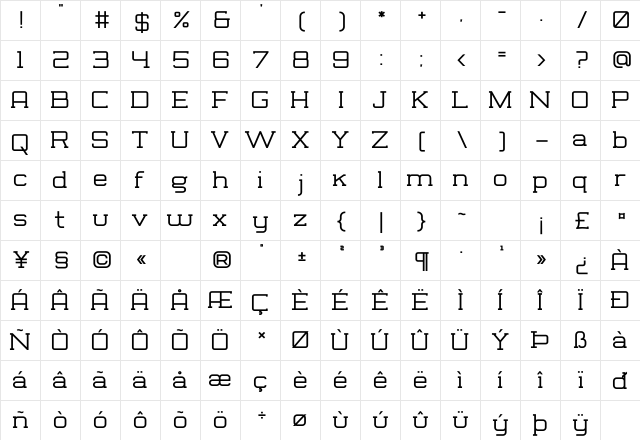
Rogueland Slab Bold
Design Context for Rogueland Slab Typeface
Rogueland Slab combines the readability of serif typography with the visual weight of a slab construction, resulting in a typeface that feels both authoritative and approachable. The heavy weight commands attention and anchors typographic hierarchies.
Suited to magazines, political campaign materials, bold packaging, and any setting where authority matters.
Pro Tip: Use Rogueland Slab for headlines and subheadings where its slab serifs can make an impression. It also holds up well in mid-size body copy thanks to its sturdy construction.